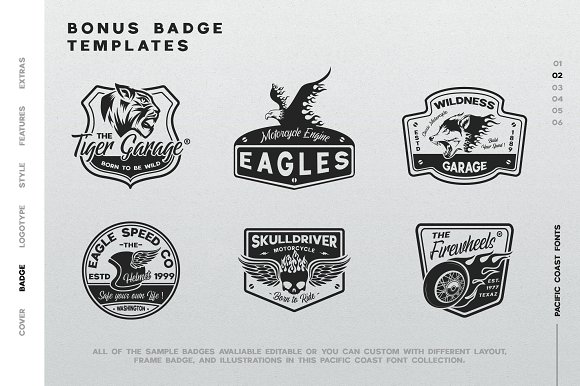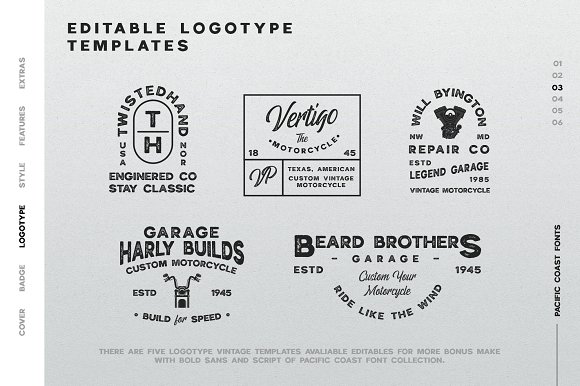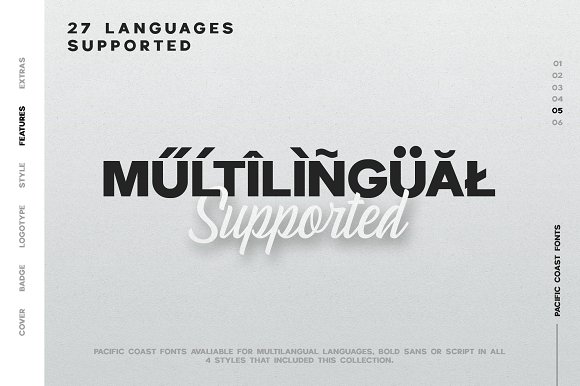
PACIFIC COAST Font + Extras
Pacific Coast fonts is font collection with bold sans and script. There are 4 styles (sans, rounded, rough and stamp) of each Pacific Coast font. This font matches applies in some designs such as the logotype, magazine, headline blog or website, packaging, branding, and more products. The script font of Pacific Coast have features stylistic alternates set for more custome designs.
Pacific Coast fonts have extras illustrations, badges, and logo templates editable in eps and dingbat format. There are five logotype vintage templates avaliable editables for more bonus. All of the sample badges avaliable editable or you can custom with different layout, frame badge, and illustrations.